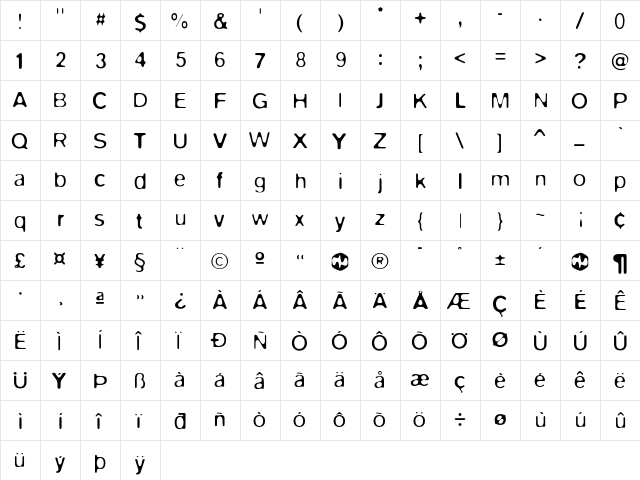
Blur Light Font Preview
Blur Light
Blur Light Font Details
Design Context for Blur Typeface
Blur is a composed and adaptable typeface that performs quietly and consistently across a wide range of design contexts. The delicate stroke weight brings airiness and refinement to layouts.